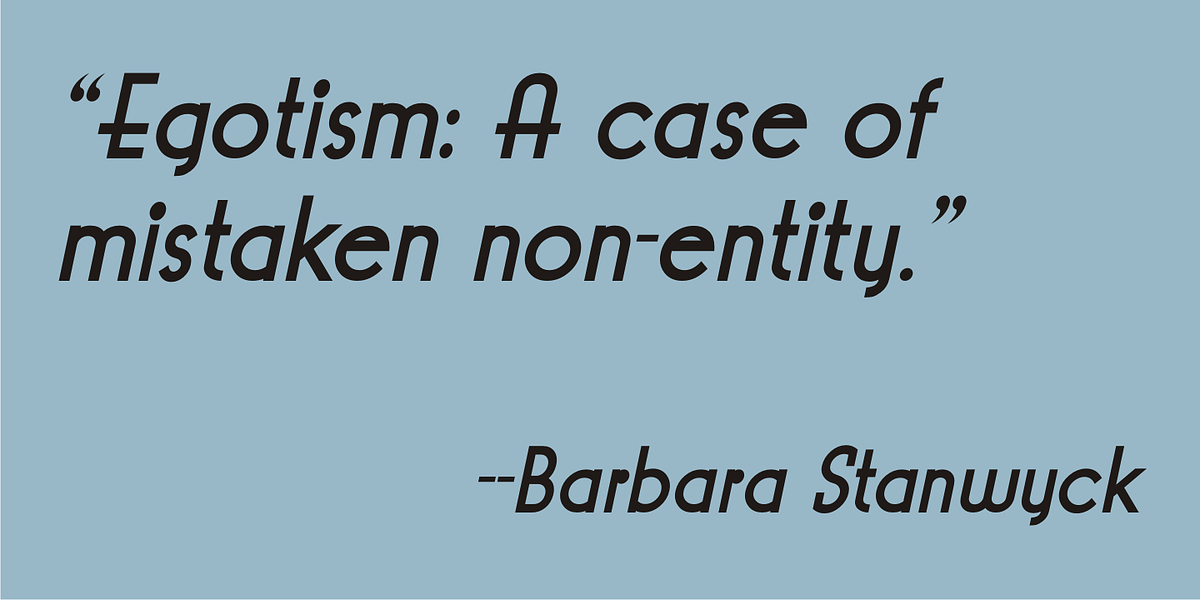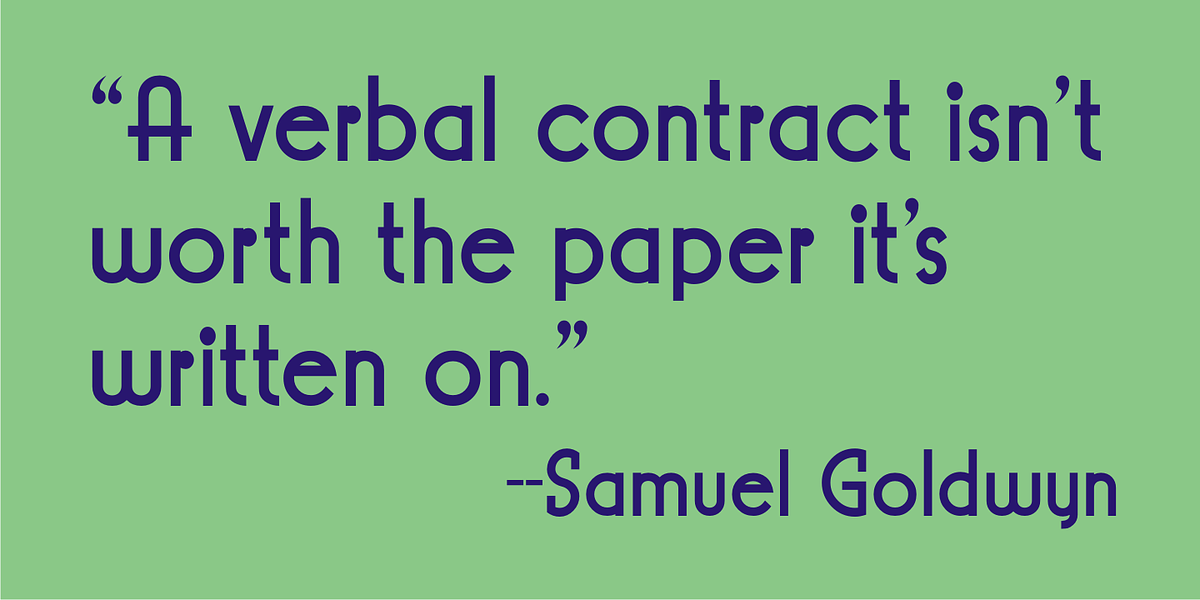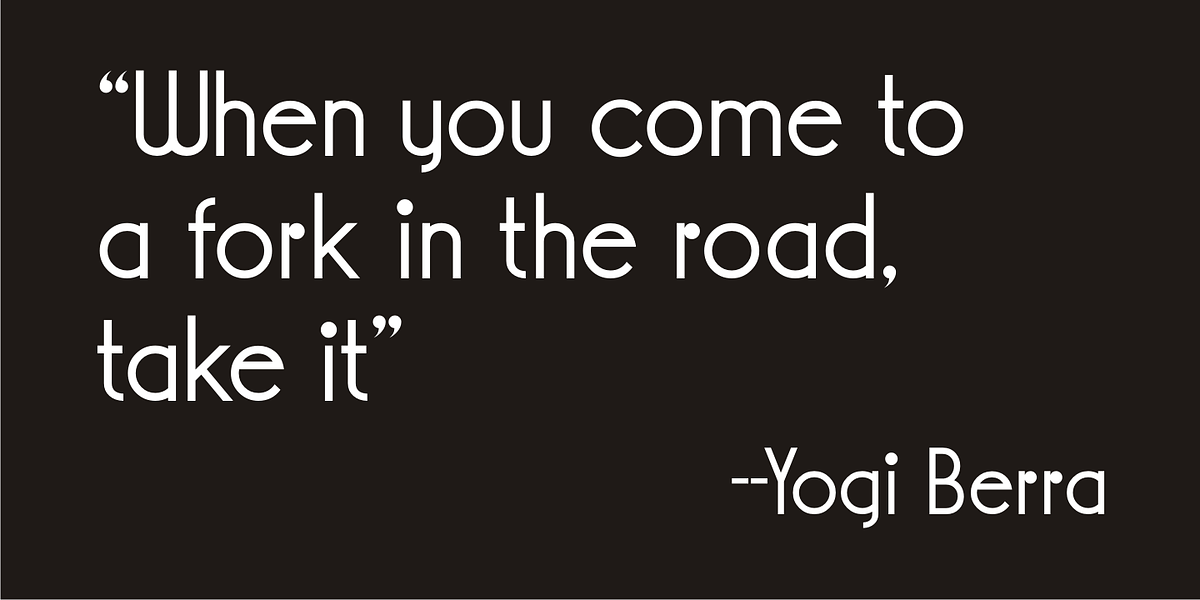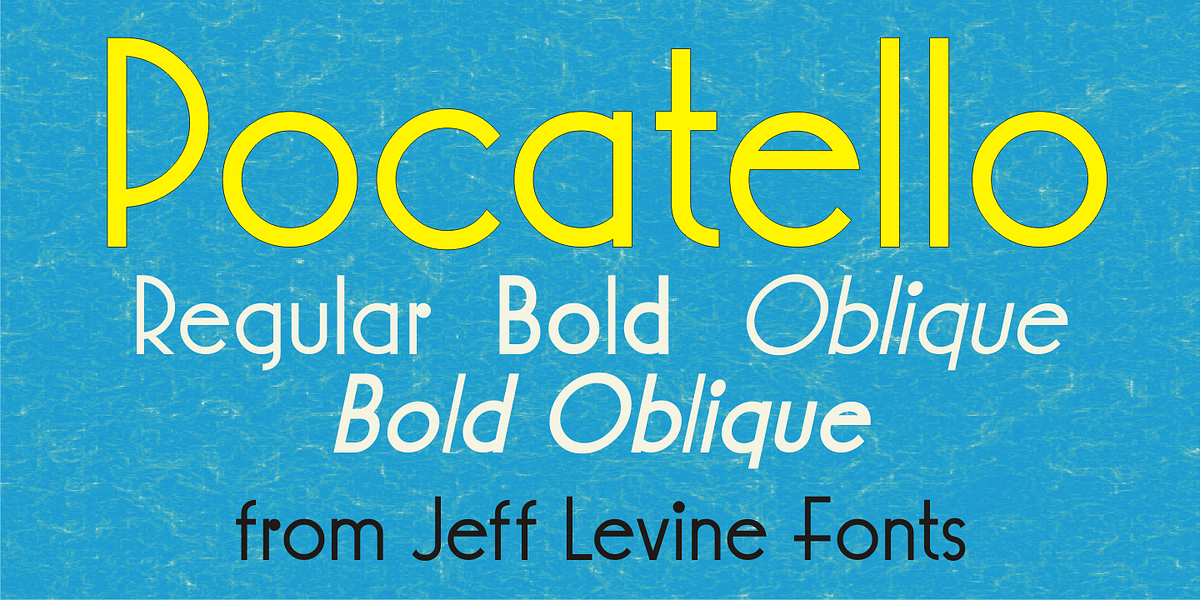
Pocatello JNL
The hand-lettered title, cast and crew credits for 1943's "Presenting Lily Mars" (starring Judy Garland and Van Heflin) inspired Pocatello JNL, but the name of this typeface has another Judy Garland connection.
In the 1954 remake of "A Star is Born", Judy sings of being born in a trunk in a theater located in Pocatello, Idaho. The name of this Midwest town had such a great sound to it, so it was the perfect choice for the font's name.
Available in regular,oblique, bold and bold oblique versions.